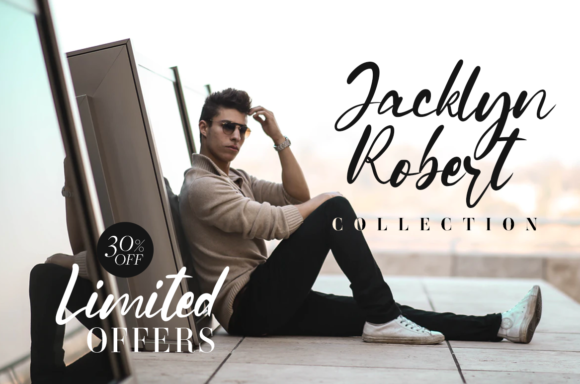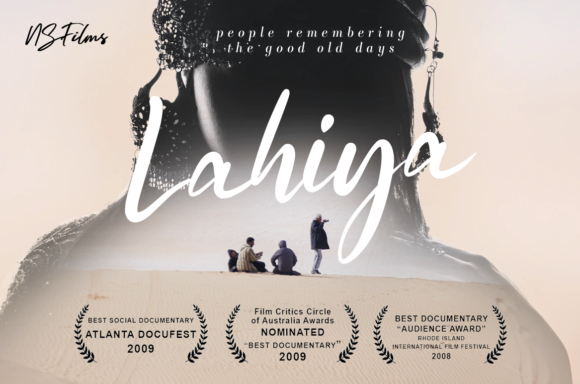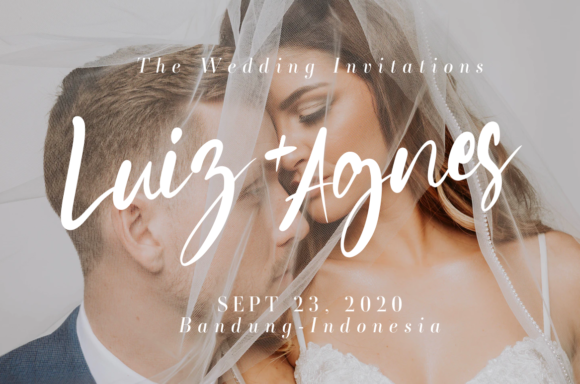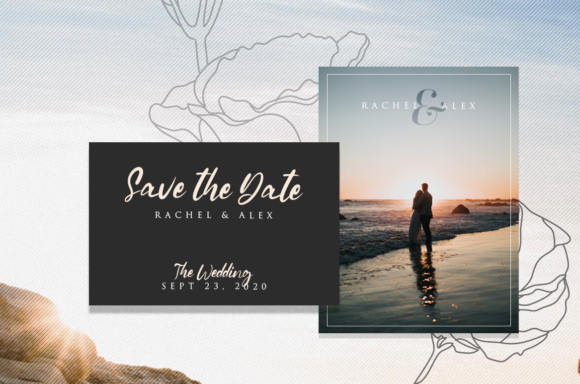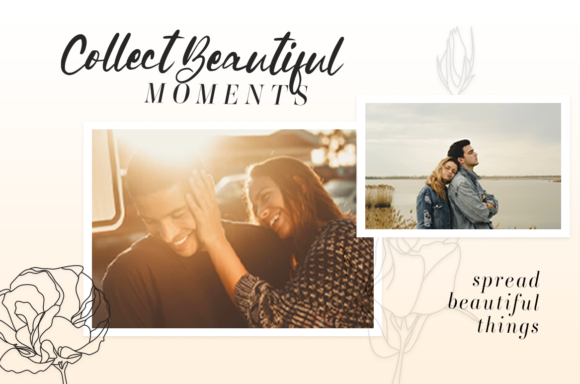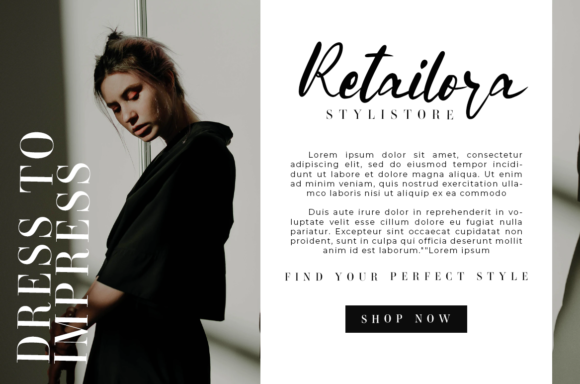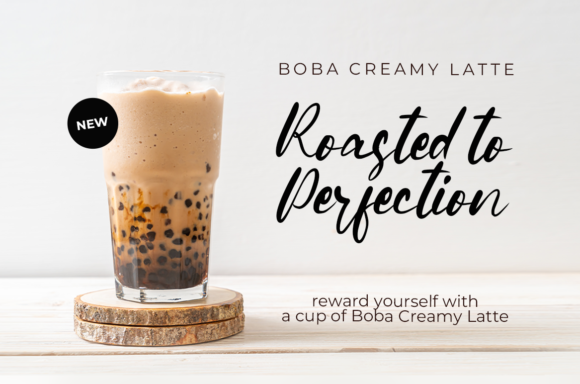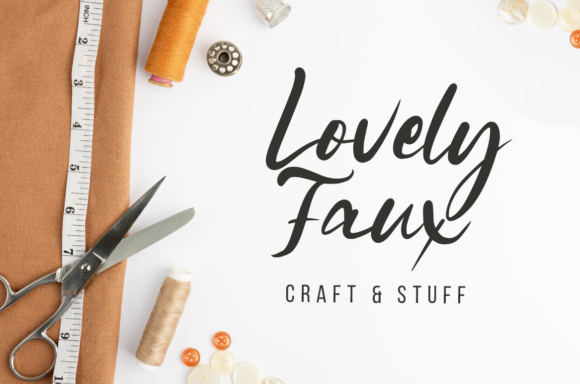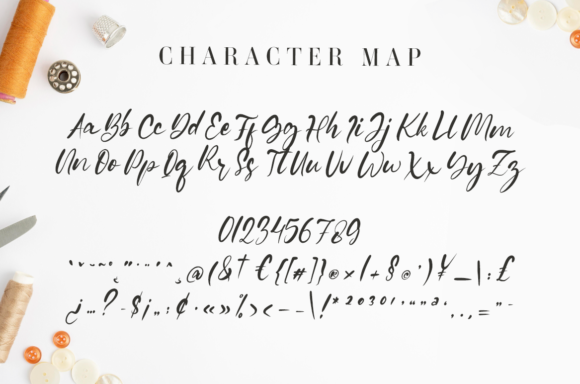
Gianella Font
About Gianella Font
Gianella is a truly exquisite handwritten font that combines the timeless elegance of calligraphy with a contemporary and fresh feel. Its delicate and flowing strokes give it a sense of grace and sophistication, making it a perfect choice for a wide range of design projects.
Whether you’re working on branding, wedding invitations, logos, quotes, product packaging, or any other creative endeavor, Gianella will elevate your designs and add a touch of luxury and refinement. Its versatile style allows it to shine in both formal and informal settings, making it suitable for any occasion.
The masterful design of Gianella ensures that each letter is crafted with precision and care, creating a harmonious and balanced typeface that is pleasing to the eye. Its smooth and flowing curves add a sense of movement and elegance, making every word written with Gianella a true work of art.
Fall in love with Gianella’s beauty and versatility, and watch as your projects reach new heights. Its classy calligraphic influences bring a touch of timeless sophistication, while its contemporary and fresh elements give it a modern edge that will captivate your audience.
Gianella’s charm and elegance will make it an instant favorite in your font collection. It is a font that stands out and makes a statement, yet remains approachable and versatile for a wide range of design applications.
With Gianella as your go-to font, you can confidently create stunning and memorable designs that leave a lasting impression. So let Gianella become your creative companion and witness how it brings your projects to the highest levels of elegance and style!